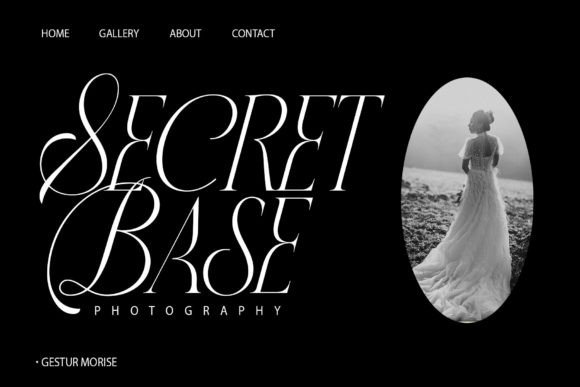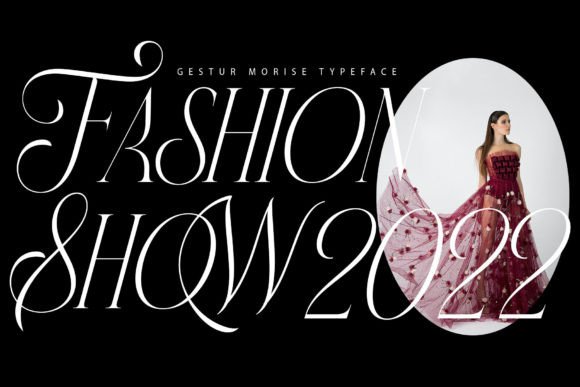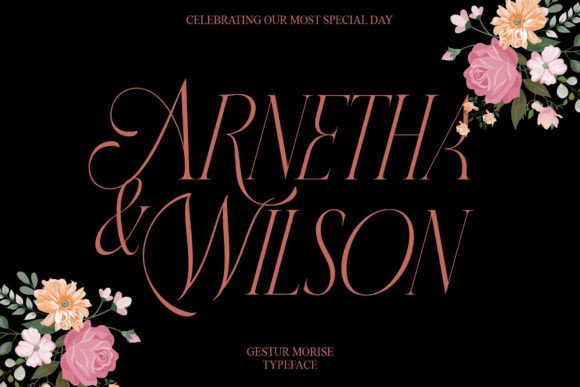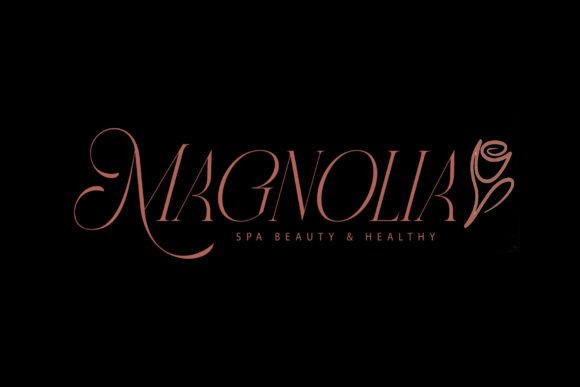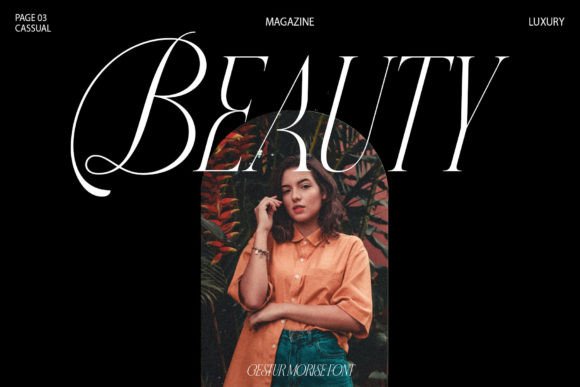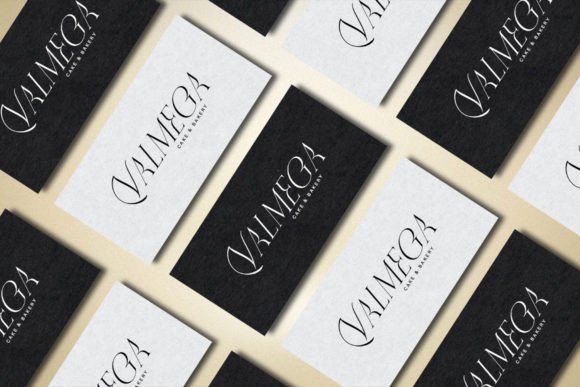
Introducing Gesture Morise Font: Elevate Your Designs with Elegance and Luxury
In the world of typography, fonts play a crucial role in conveying the tone and aesthetic of a design. For designers and crafters seeking to add a touch of sophistication and luxury to their work, the Gesture Morise font is an exceptional choice. This fancy font is meticulously crafted with intricate details and a plethora of ties, making it perfect for projects that demand elegance and refinement.
What is Gesture Morise Font?
Gesture Morise is a unique and stylish font that boasts an impressive array of features. Its design is characterized by elaborate swashes, flourishes, and ligatures, which collectively contribute to its luxurious feel. The font’s intricate details are carefully crafted to ensure that each letter and symbol exudes a sense of high-end quality, making it an ideal selection for designers aiming to create visually stunning and sophisticated designs.
Key Features of Gesture Morise Font
- Intricate Details: Gesture Morise is replete with fine details that set it apart from more straightforward fonts. Its elaborate design elements make it perfect for projects where luxury and elegance are paramount.
- Extensive Ligatures and Ties: One of the standout features of Gesture Morise is its comprehensive collection of ligatures and ties. These allow for a high degree of customization and flexibility, enabling designers to create unique and flowing text that enhances the overall aesthetic of their work.
- Elegant and Luxurious: The font’s overarching theme of elegance and luxury makes it suitable for a variety of applications, from high-end branding and advertising to elegant stationery and packaging designs.
- Versatility: Despite its luxurious feel, Gesture Morise is surprisingly versatile. It can be used in a range of design contexts, from digital platforms to print materials, without losing its impact or appeal.
Applications of Gesture Morise Font
The applications of Gesture Morise are vast and varied. Here are a few examples of how this elegant font can elevate your designs:
- Branding and Logo Design: For brands aiming to convey luxury, sophistication, and elegance, Gesture Morise can be a valuable asset. Its unique and memorable style can help brands stand out in a crowded marketplace.
- Stationery and Packaging: Whether you’re designing business cards, letterheads, or product packaging, Gesture Morise can add a touch of class and refinement to your materials.
- Advertising and Marketing: In advertising and marketing materials, the font can be used to create visually striking headlines and copy that capture the audience’s attention and convey a sense of luxury.
- Digital Designs: For websites, social media graphics, and digital marketing materials, Gesture Morise can help create a cohesive and sophisticated visual identity.
Tips for Using Gesture Morise Font Effectively
To make the most of Gesture Morise, consider the following tips:
- Pair with Simpler Fonts: For optimal readability, pair Gesture Morise with simpler fonts for body text. This contrast will help highlight the luxury feel of the font while maintaining clarity.
- Use for Headlines and Accents: Given its intricate design, Gesture Morise shines in headlines and accent text. Use it sparingly to create visual impact without overwhelming the reader.
- Experiment with Ligatures: Take advantage of the font’s extensive ligatures and ties to create flowing and unique text. This can add a bespoke feel to your designs.
| Font Name | Gesture Morise Font |
| Author | dnartdesignn |
Gesture Morise font is a remarkable addition to any designer’s toolkit. Its elegant and luxurious aesthetic, combined with its versatility and extensive features, make it an excellent choice for a wide range of design projects. Whether you’re aiming to create sophisticated branding, luxurious packaging, or elegant stationery, Gesture Morise is sure to elevate your designs to new heights of refinement and style.
Discover the potential of Gesture Morise today and transform your designs with its unparalleled elegance and luxury.